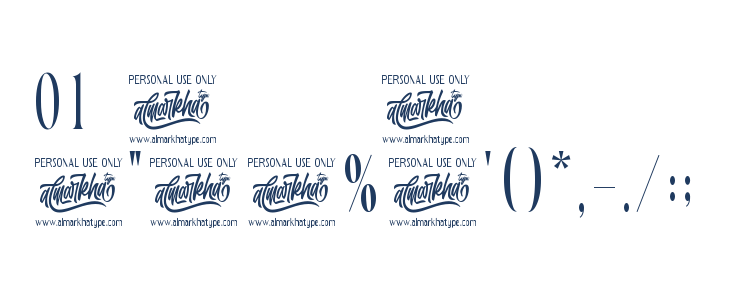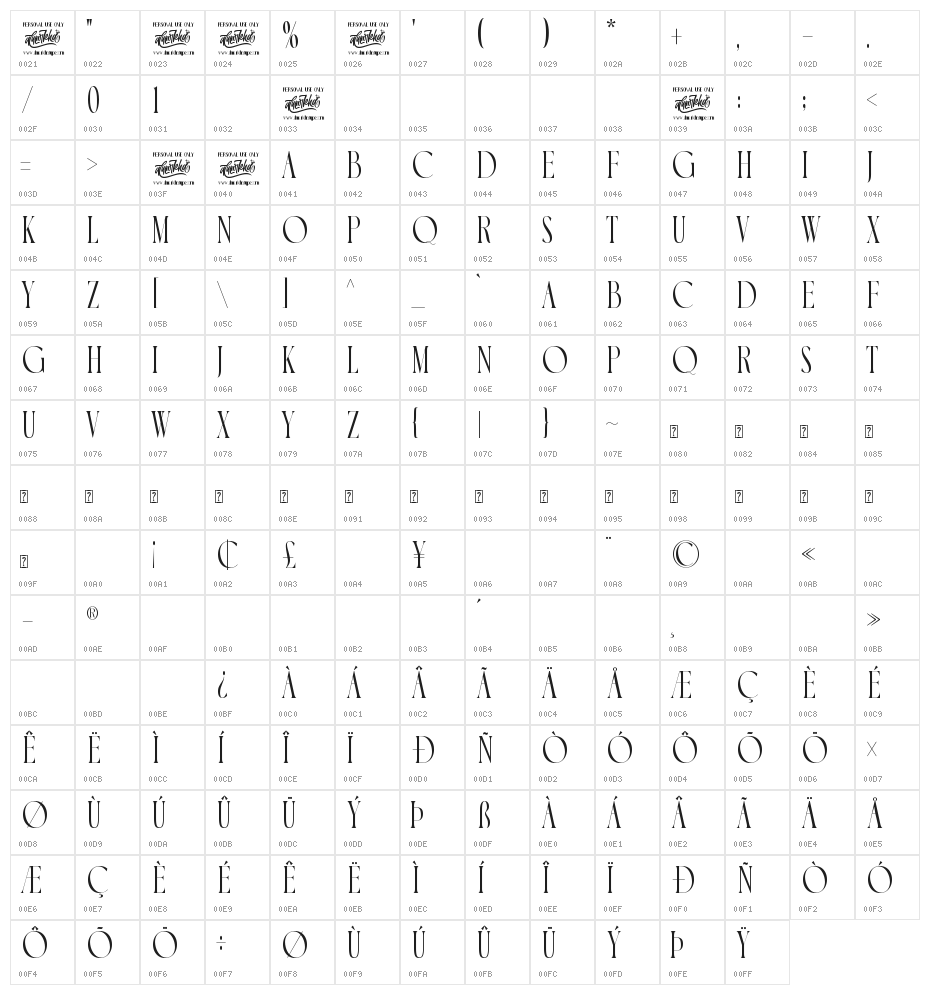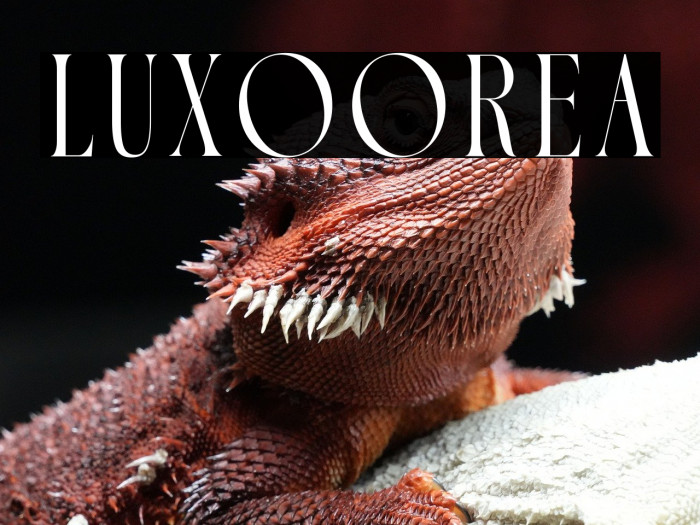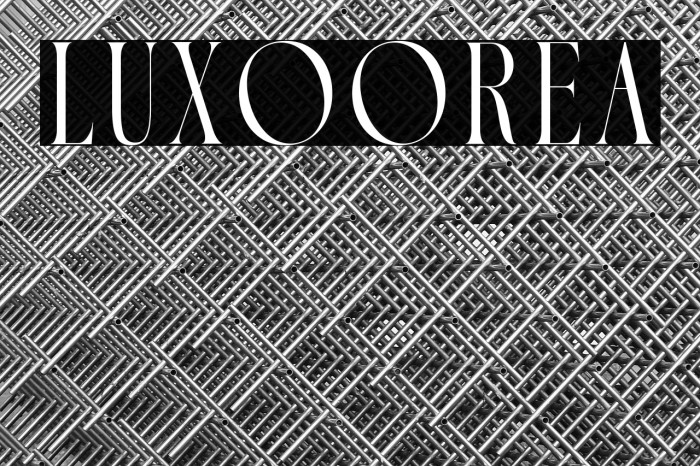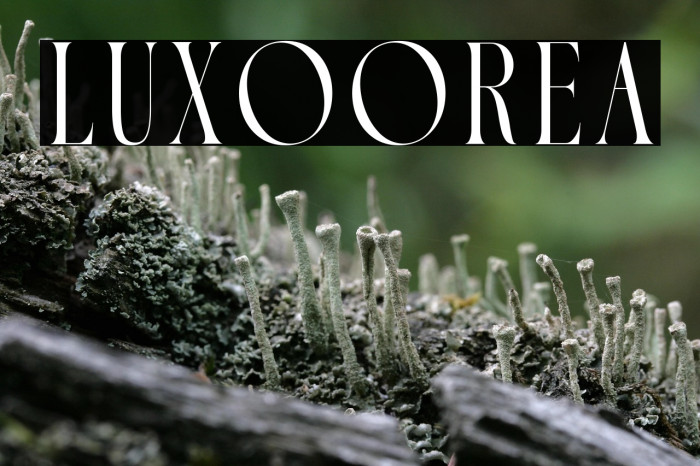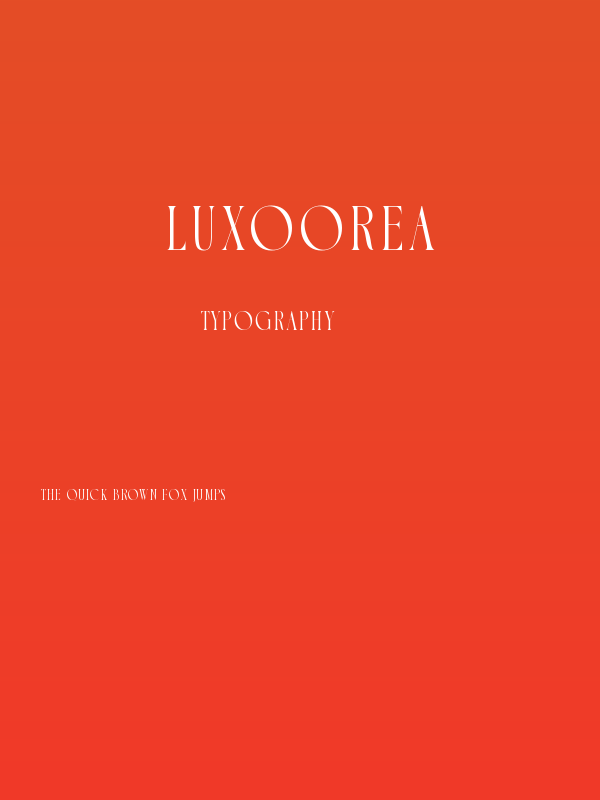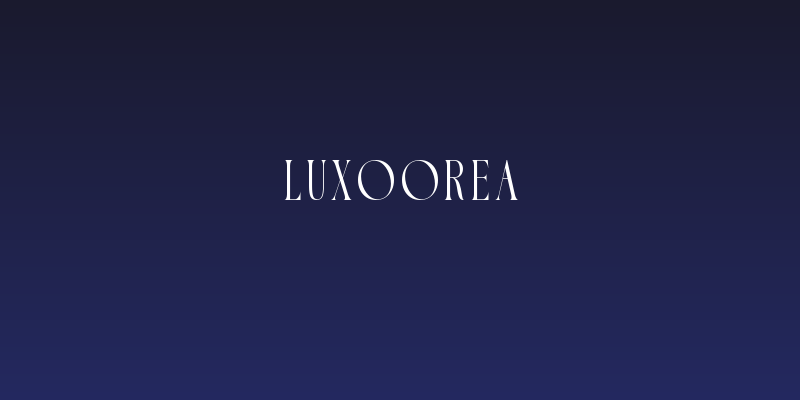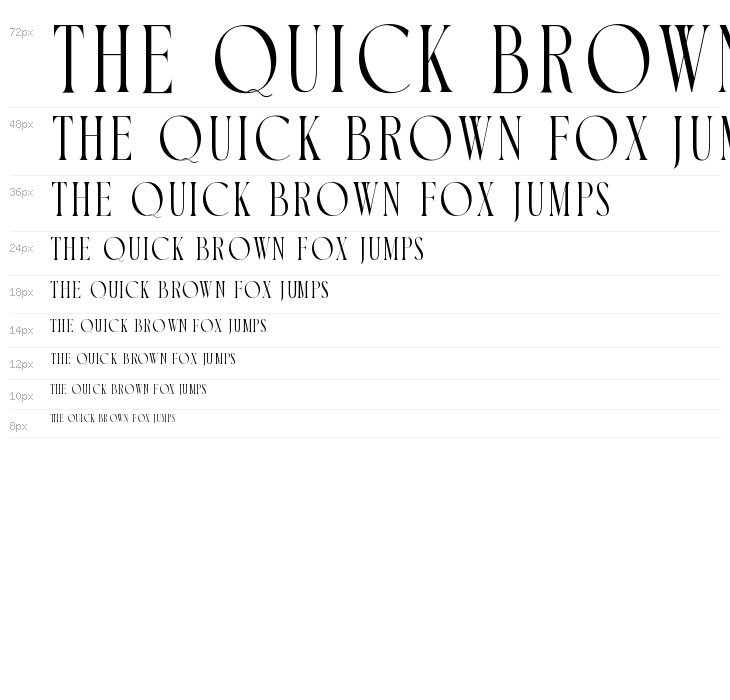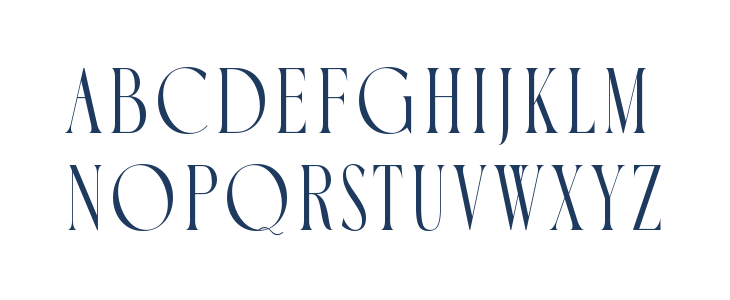
Luxoorea Font
Luxoorea Description
This font features elegant, elongated letterforms with a high contrast between thick and thin strokes, giving it a sophisticated and luxurious appearance. The uppercase letters are tall and slender, with subtle curves that add a touch of grace. The lowercase letters maintain a consistent style, complementing the uppercase with their refined shapes. The numerals are designed to match the overall aesthetic, with a similar contrast in stroke weight. Special characters are included, maintaining the font's elegant style. This font is suitable for projects that require a touch of elegance and sophistication.